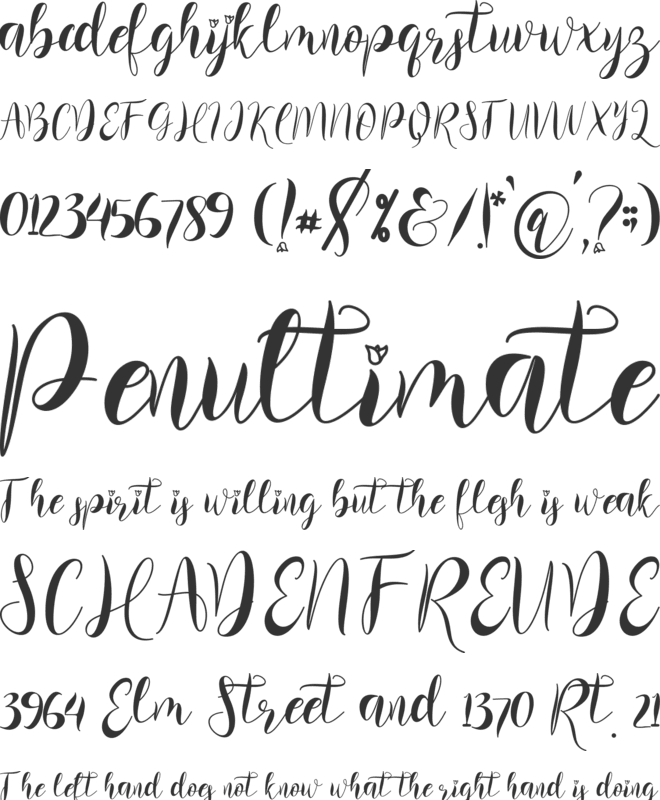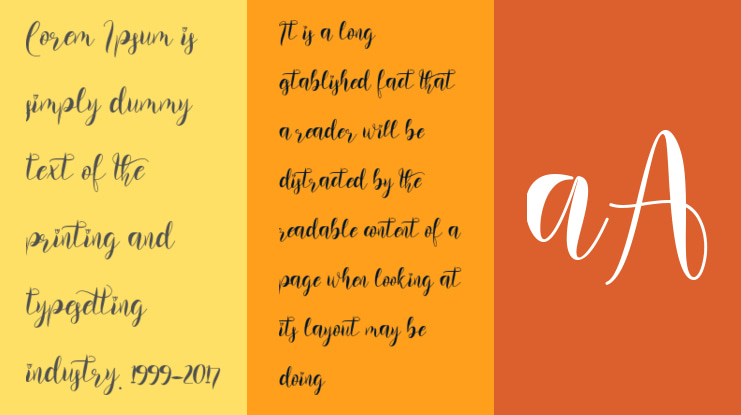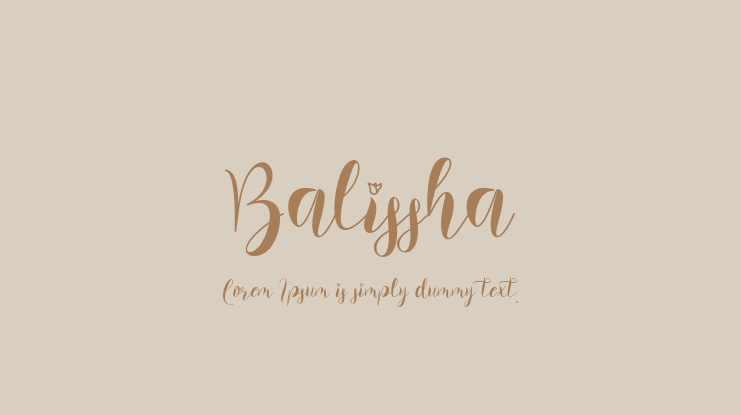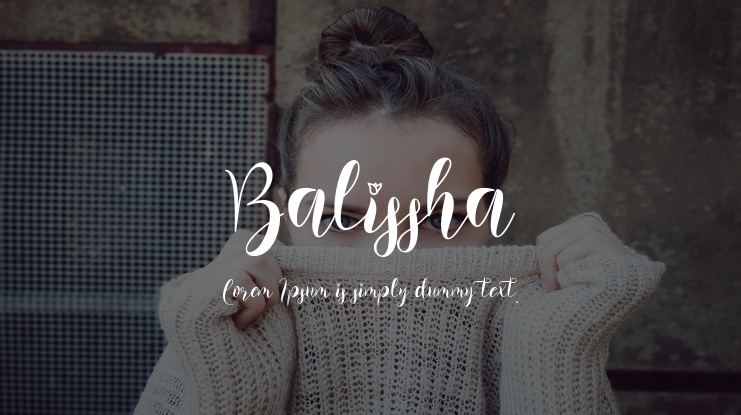
Balissha Font
Balissha is a high quality font that is made with a subtle touch, resulting in a very beautiful, elegant font suitable for all types of your work. This font is perfect for all wedding needs (wedding invitations, wedding photography, decorations,and other wedding designs. It is perfect for promoting your business (hotel, villa, vacation spots, products, services or other promotions. Also suitable for promo updates, logos, branding, posters, for status updates on social media, christmas, autumn, and others.